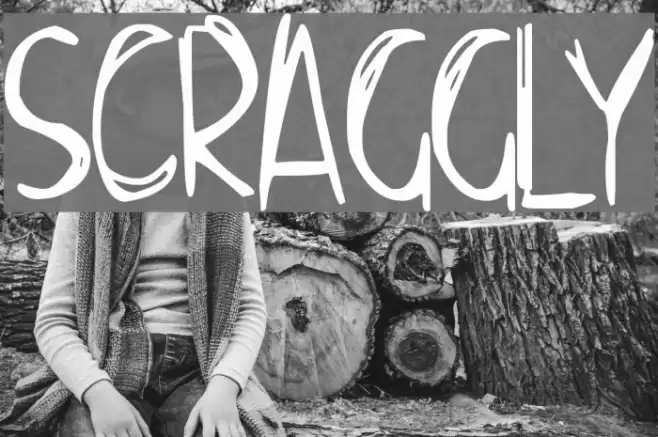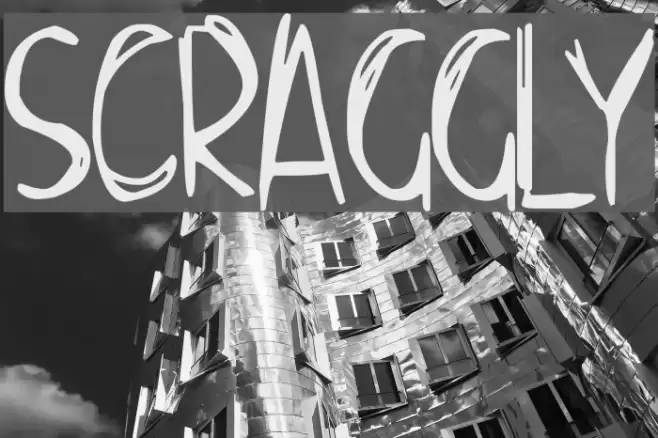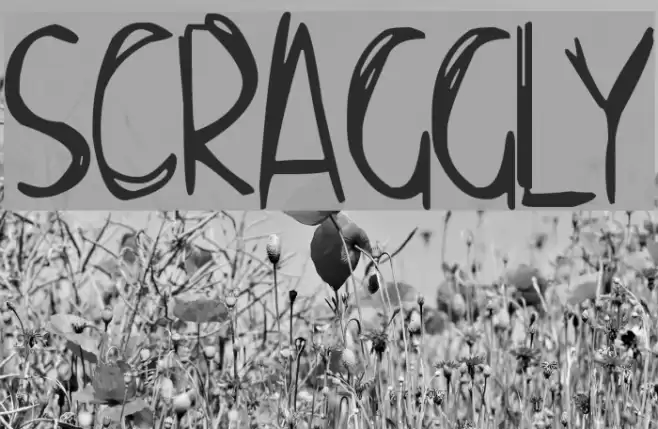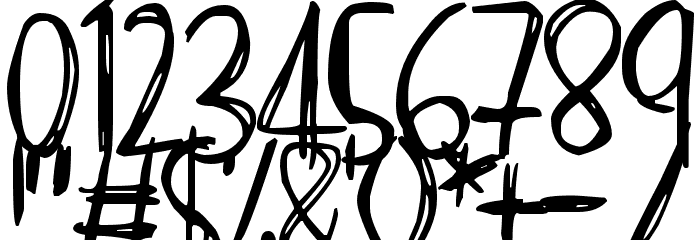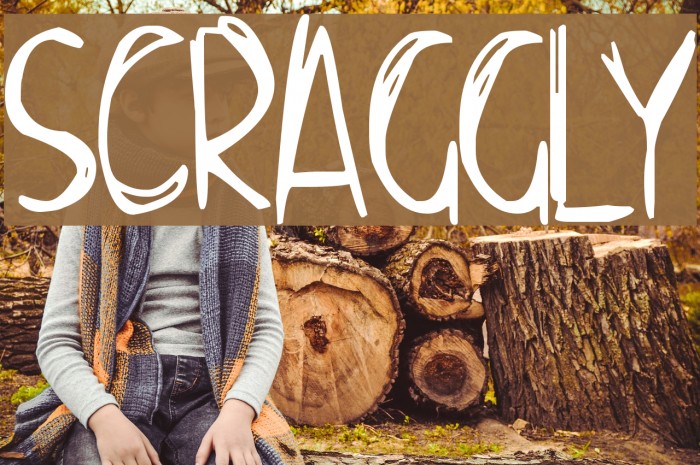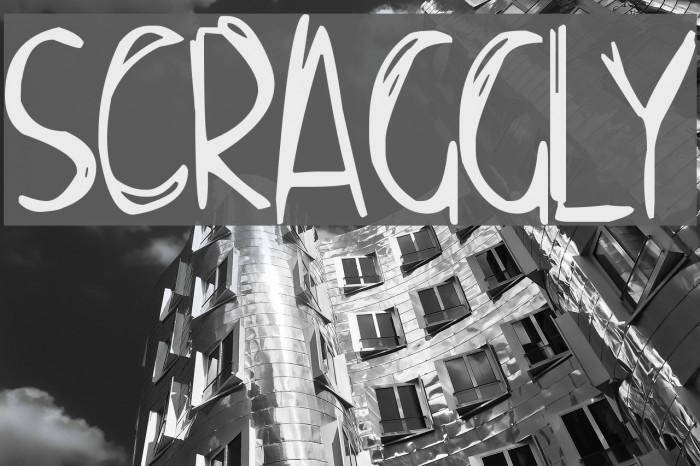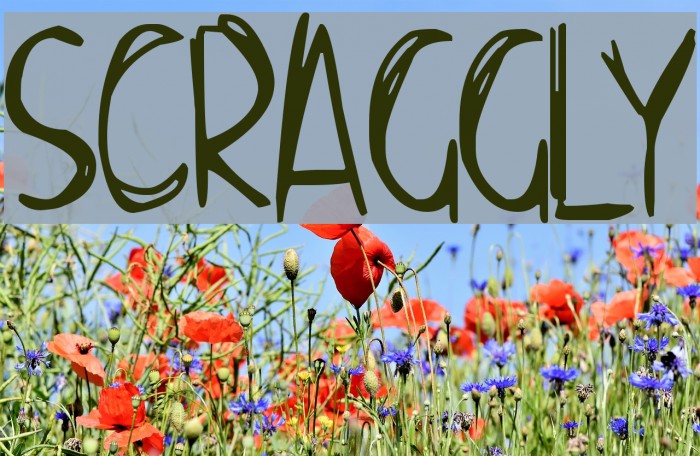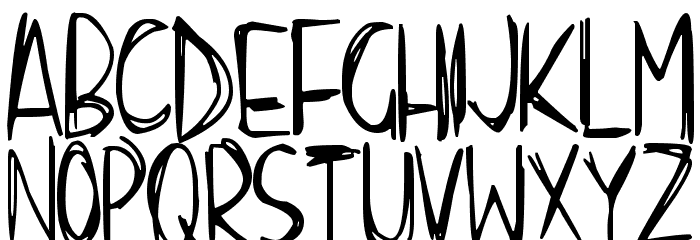
Scraggly Font
Scraggly Description
This font features a playful, hand-drawn style with irregular strokes and a whimsical appearance. The characters are tall and narrow, with varying line thickness that adds to its quirky charm. The uppercase and lowercase letters maintain a consistent height, creating a cohesive look. The numbers and special characters follow the same playful design, making it suitable for creative projects. The overall aesthetic is casual and artistic, perfect for adding a personal touch to any design.